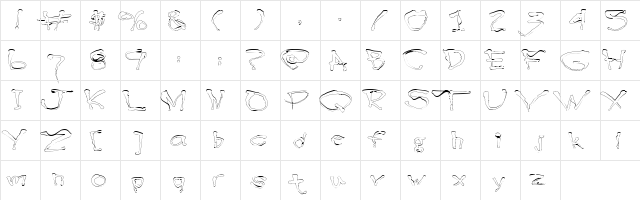
BlottoooLightBeer Regular Font Preview
BlottoooLightBeer Regular
BlottoooLightBeer Regular Font Details
Design Context for BlottoooLightBeer Typeface
BlottoooLightBeer is a composed and adaptable typeface that performs quietly and consistently across a wide range of design contexts. Its slender proportions lend an understated elegance to any composition.